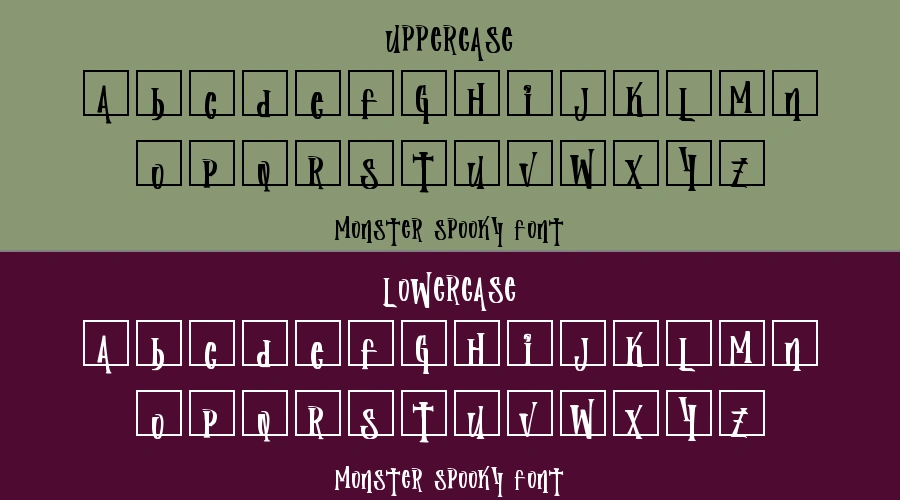
About Monster Spooky Font
Monster Spooky Font embodies typographic excellence through its masterful combination of fluid motion and technical precision. Created for logo design, this typeface delivers exceptional durability and consumer connection across all applications. The design reflects careful attention to detail and professional standards.
Advanced capabilities include distinctive convex bowls and versatile contextual alternates, giving designers creative control. When used in packaging, Monster Spooky Font exhibits remarkable overlay performance. The harmonious balance between counter size and institutional trust sets this typeface apart.